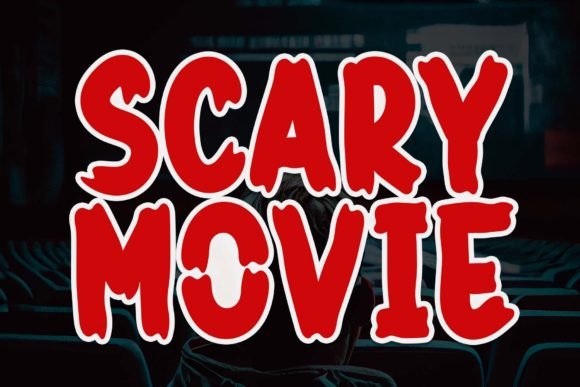
Introducing Scary Movie Font, the ultimate font style for website design that will captivate and engage your audience like never before! Created by the talented Roronoa Zoro.S.P.D., this unique and interesting display font is here to take your online presence to the next level.
With its quirky charm and unparalleled versatility, Scary Movie Font is the perfect choice for anyone looking to make a bold statement in their web design. This font is not your average typeface – it exudes personality and character, making it stand out from the sea of mundane fonts out there.
Imagine your website or blog adorned with the Scary Movie Font, instantly grabbing the attention of your visitors. Its captivating design will leave a lasting impression, ensuring that your content is memorable and shareable. Whether you're a creative agency, a fashion brand, or a lifestyle blogger, this font will elevate your brand image and set you apart from the competition.
Scary Movie Font is a true chameleon, effortlessly adapting to any context. From spooky Halloween-themed designs to playful children's websites, this font can do it all. Its versatility knows no bounds, making it a go-to choice for designers looking to add a touch of magic to their projects.
What sets Scary Movie Font apart is its ability to evoke emotions and create a connection with your audience. Its captivating style will transport your visitors into a world of imagination and excitement. Whether you want to convey a sense of mystery, playfulness, or even nostalgia, this font has got you covered.